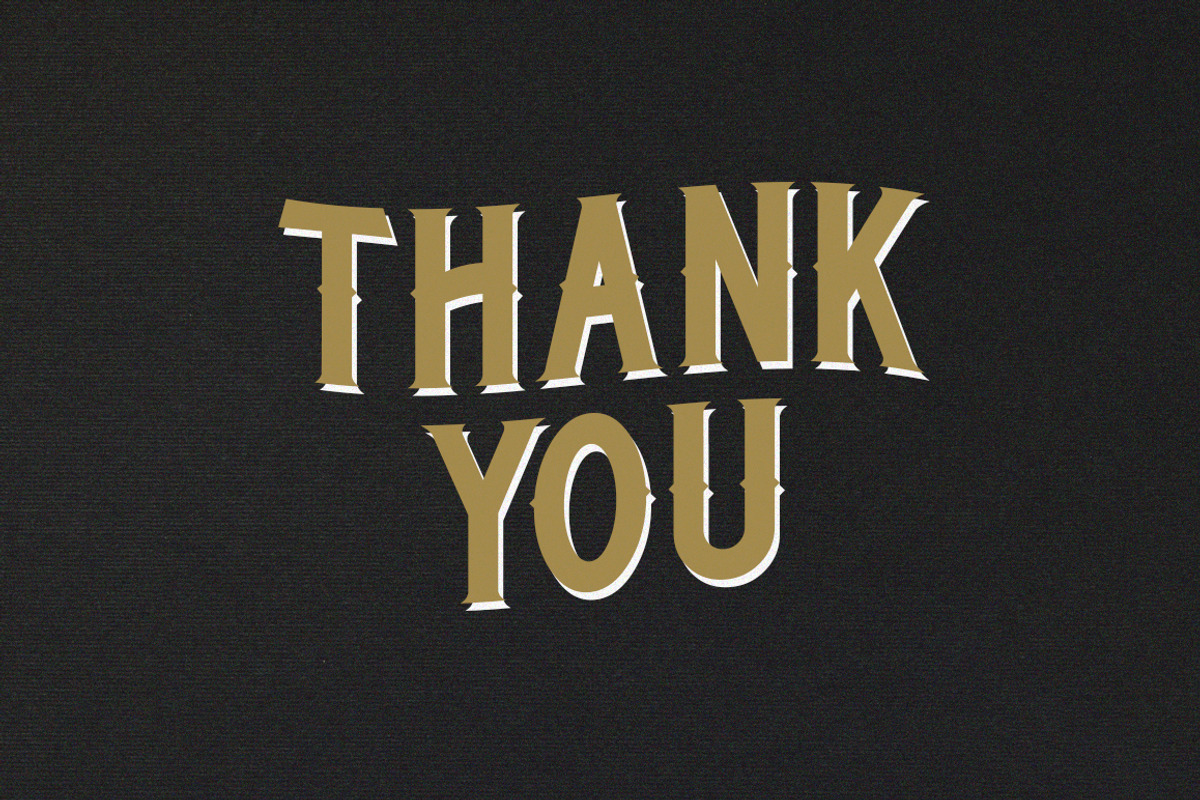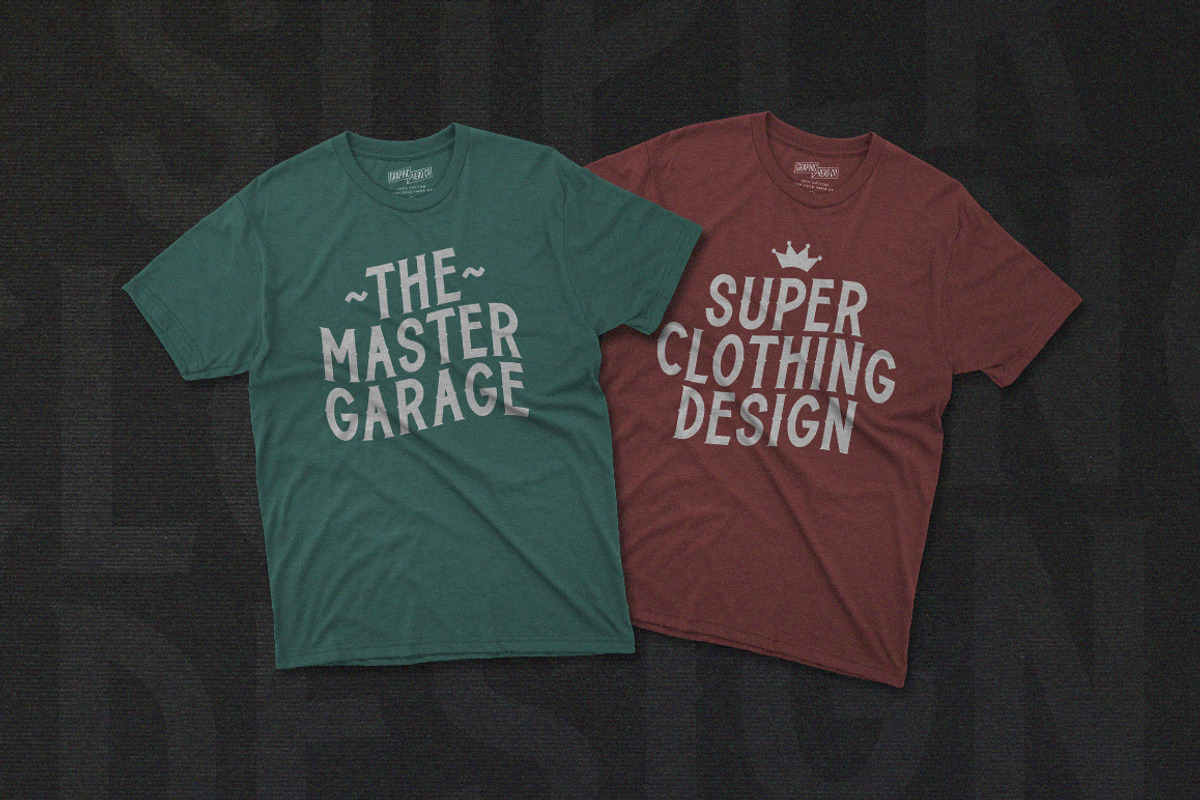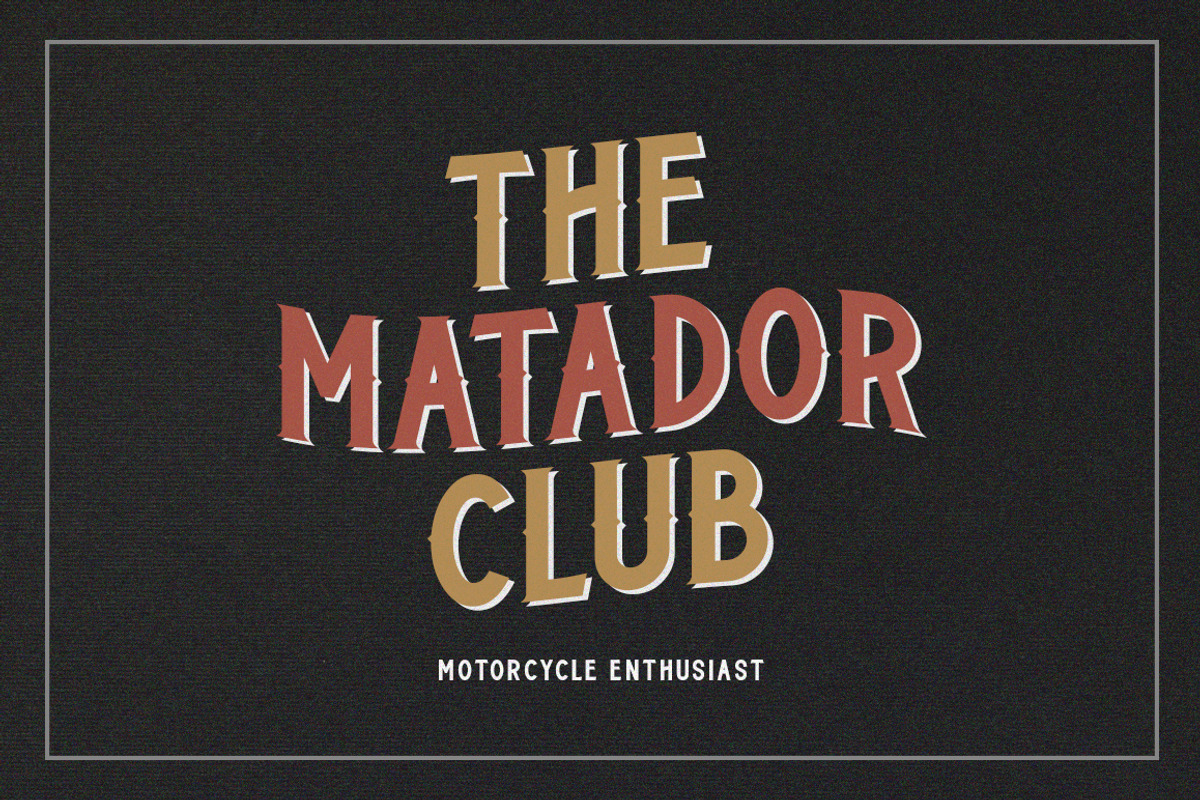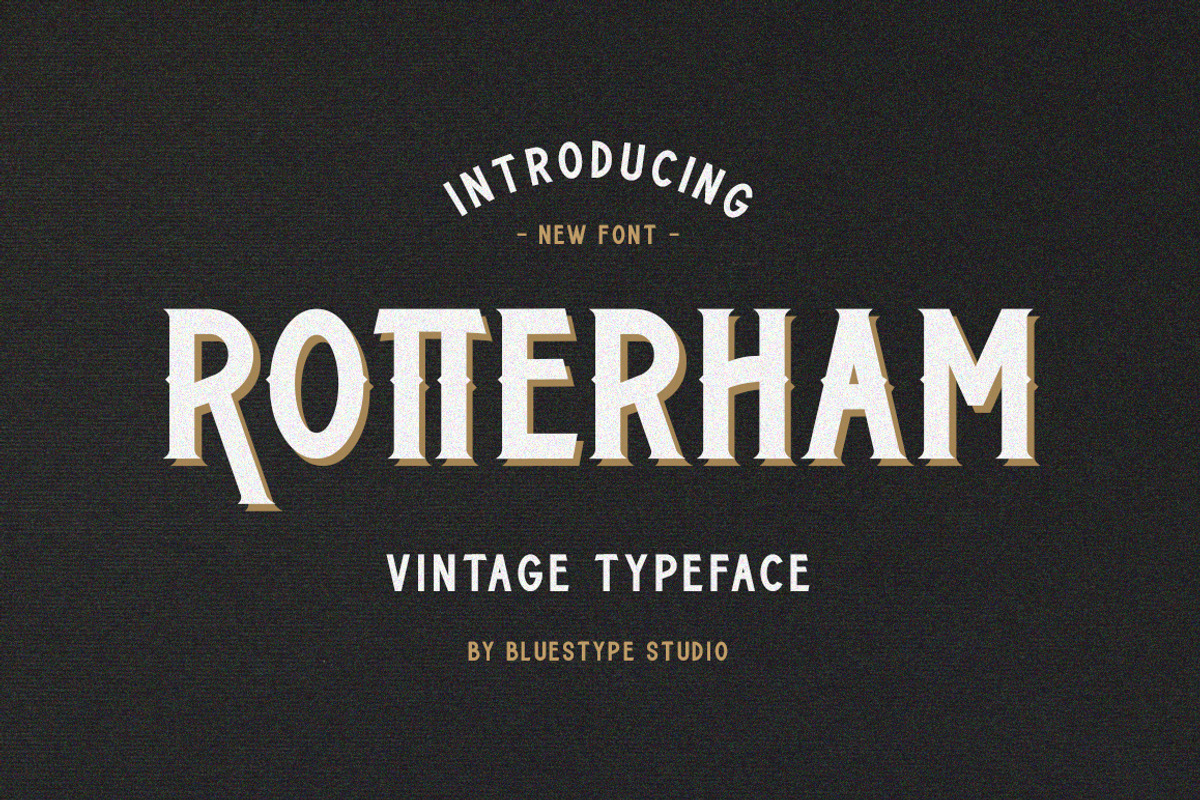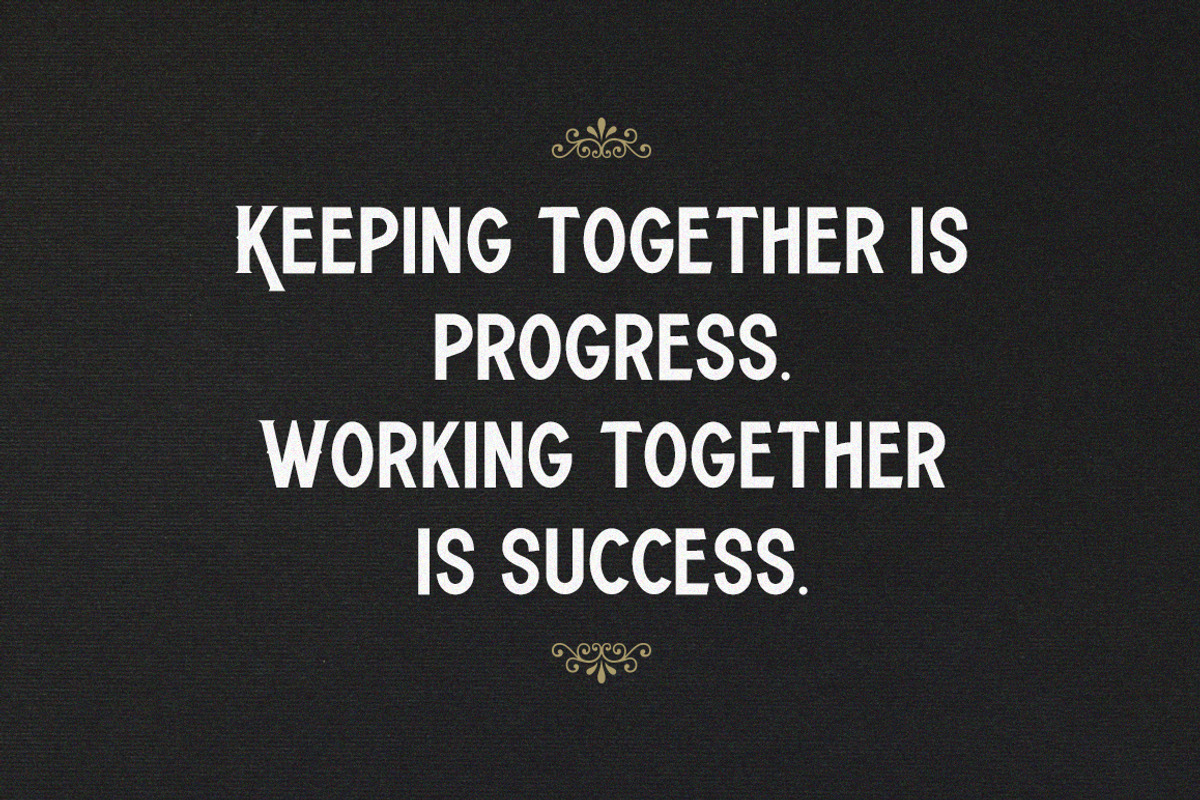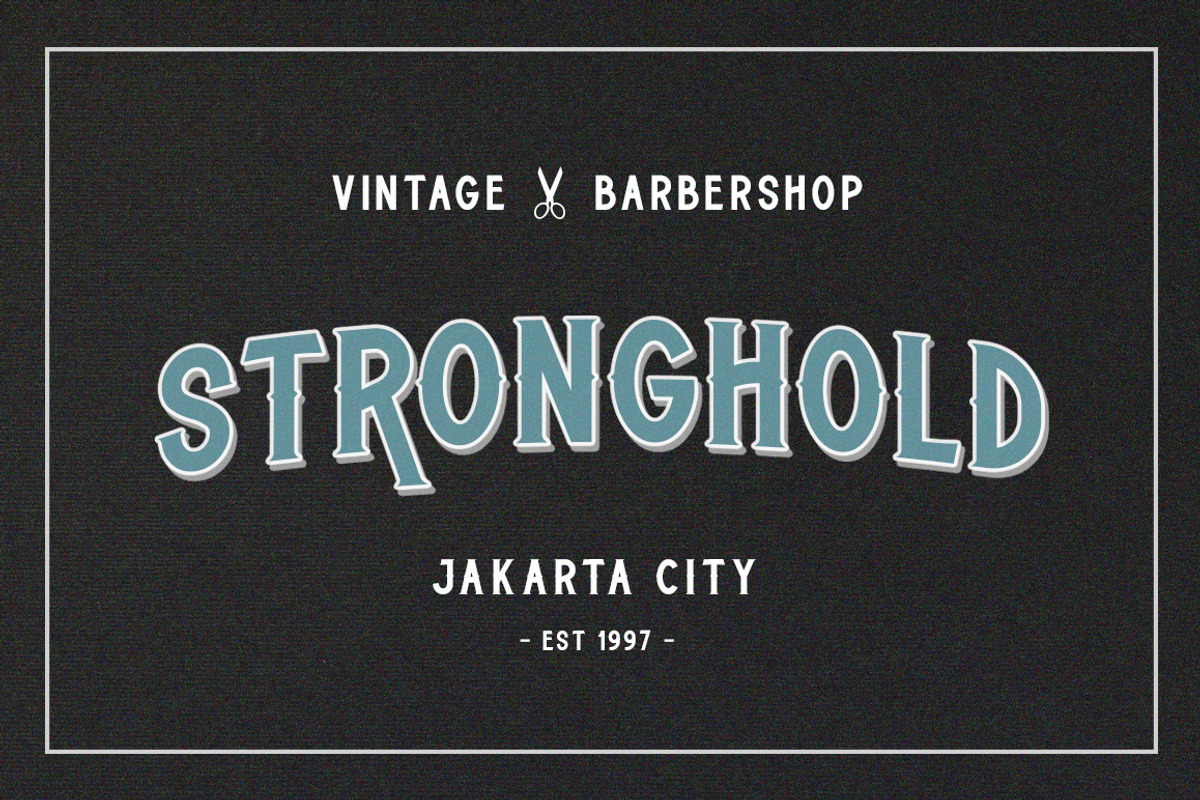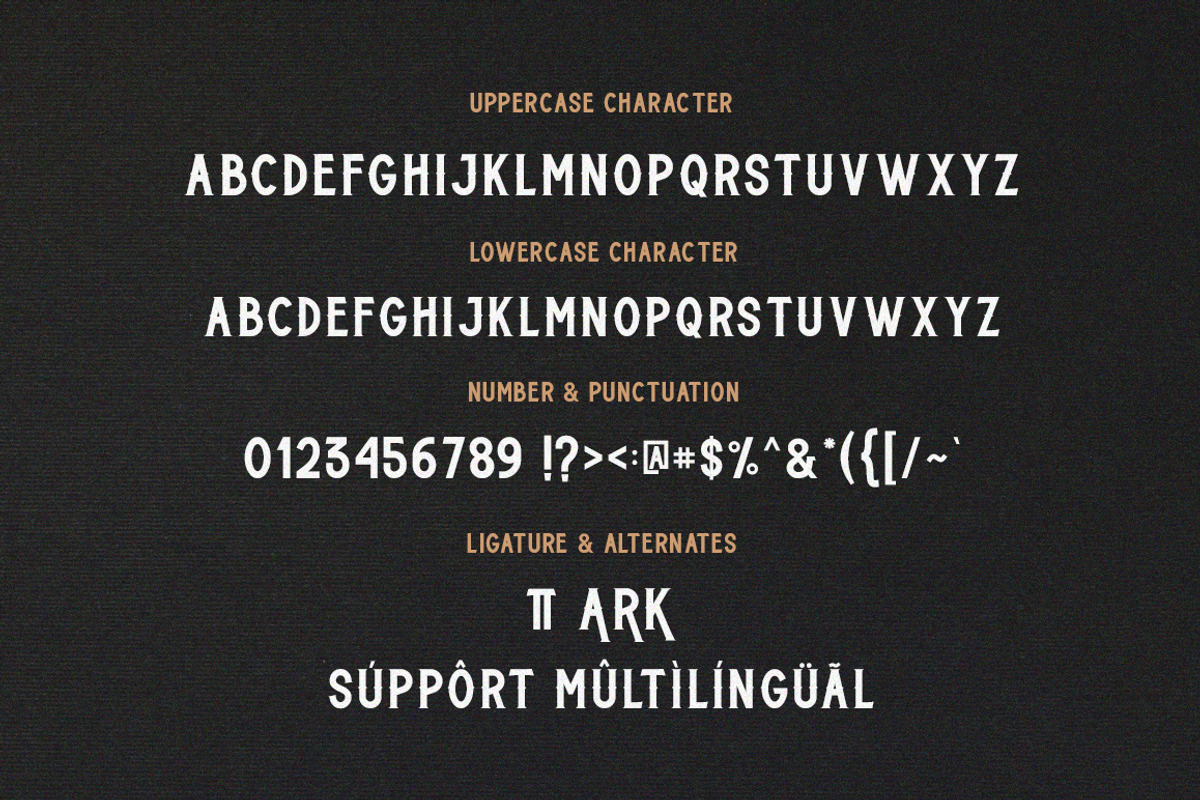
ROTTERHAM - VINTAGE FONT
New Update : Rotterham Outline Style.
Rotterham is a vintage display font. This typeface has can be used for vintage theme or retro looks with ligatures & alternates.
Very suitable for logotype, headline, tittle, and the other various formal forms such as invitations, emblems, logos, magazines, books, packaging, clothing, t-shirt, and labels.
- Stylistic Alternates & Ligature
- Number & Punctuation
- Support Multilingual Languange
By Bluestype Studio.